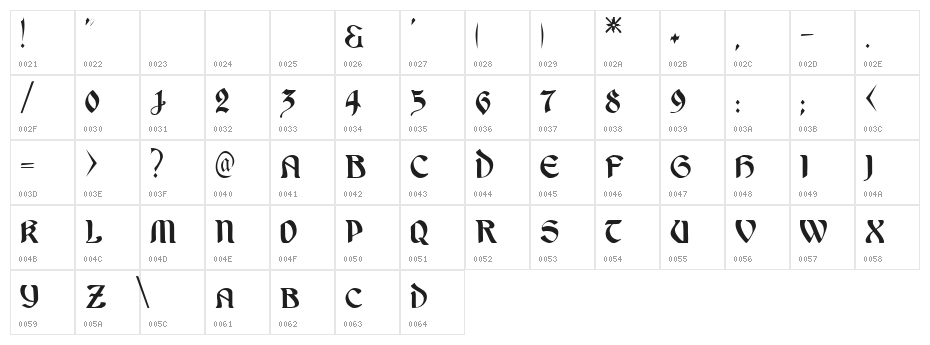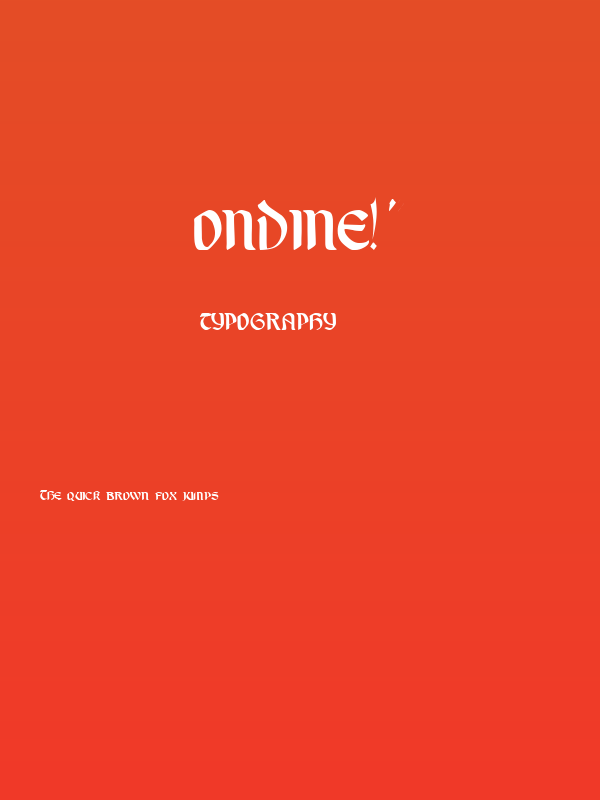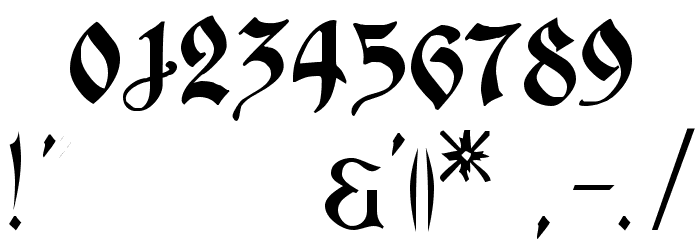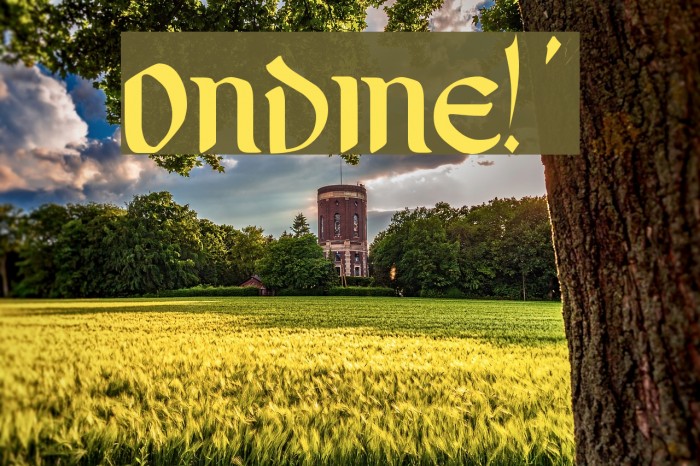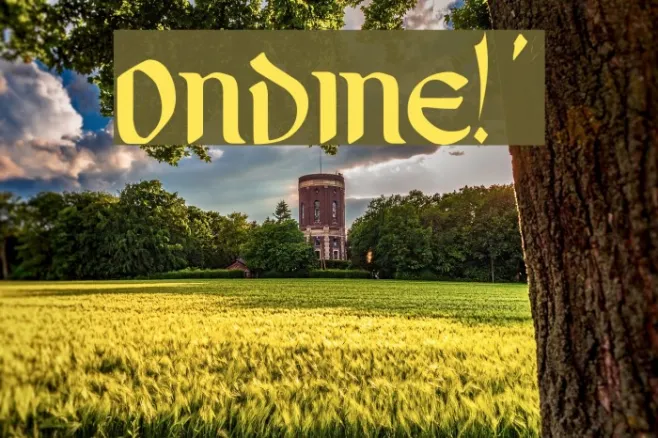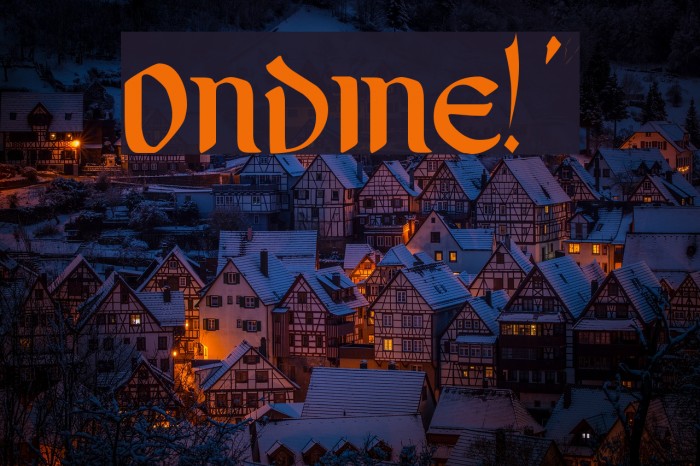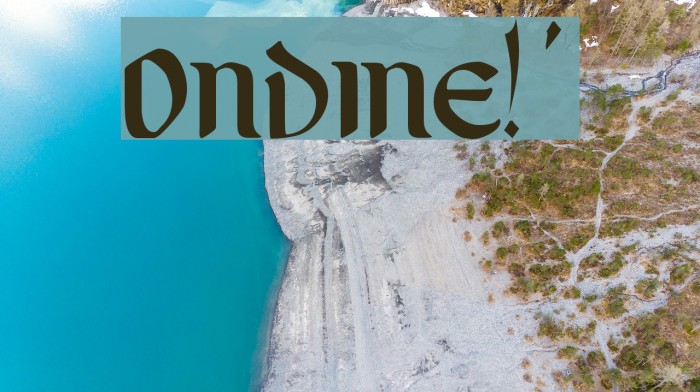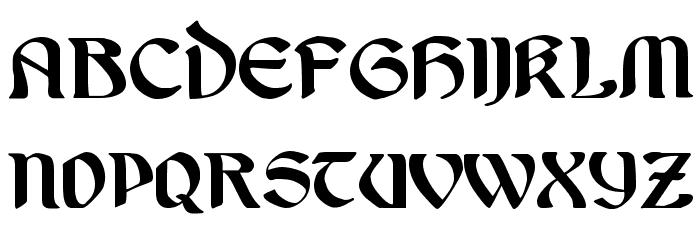
Ondine!" Font
Ondine!" Description
This font exhibits a bold and dramatic style, characterized by its sharp edges and intricate curves. The uppercase letters are particularly striking, with a medieval or gothic influence that gives them a sense of grandeur and formality. The lowercase letters maintain this theme, offering a consistent and cohesive look across the alphabet. Numbers and special characters are crafted with the same attention to detail, ensuring they complement the overall aesthetic. The font's unique style makes it stand out, with a strong presence that commands attention. Its design is both artistic and functional, suitable for projects that require a touch of elegance and historical flair.
| Use Case | Logos, Headlines, Book Covers |
| Proposed Projects | Ideal for use in branding, logos, book covers, or any project requiring a historical or dramatic flair. |